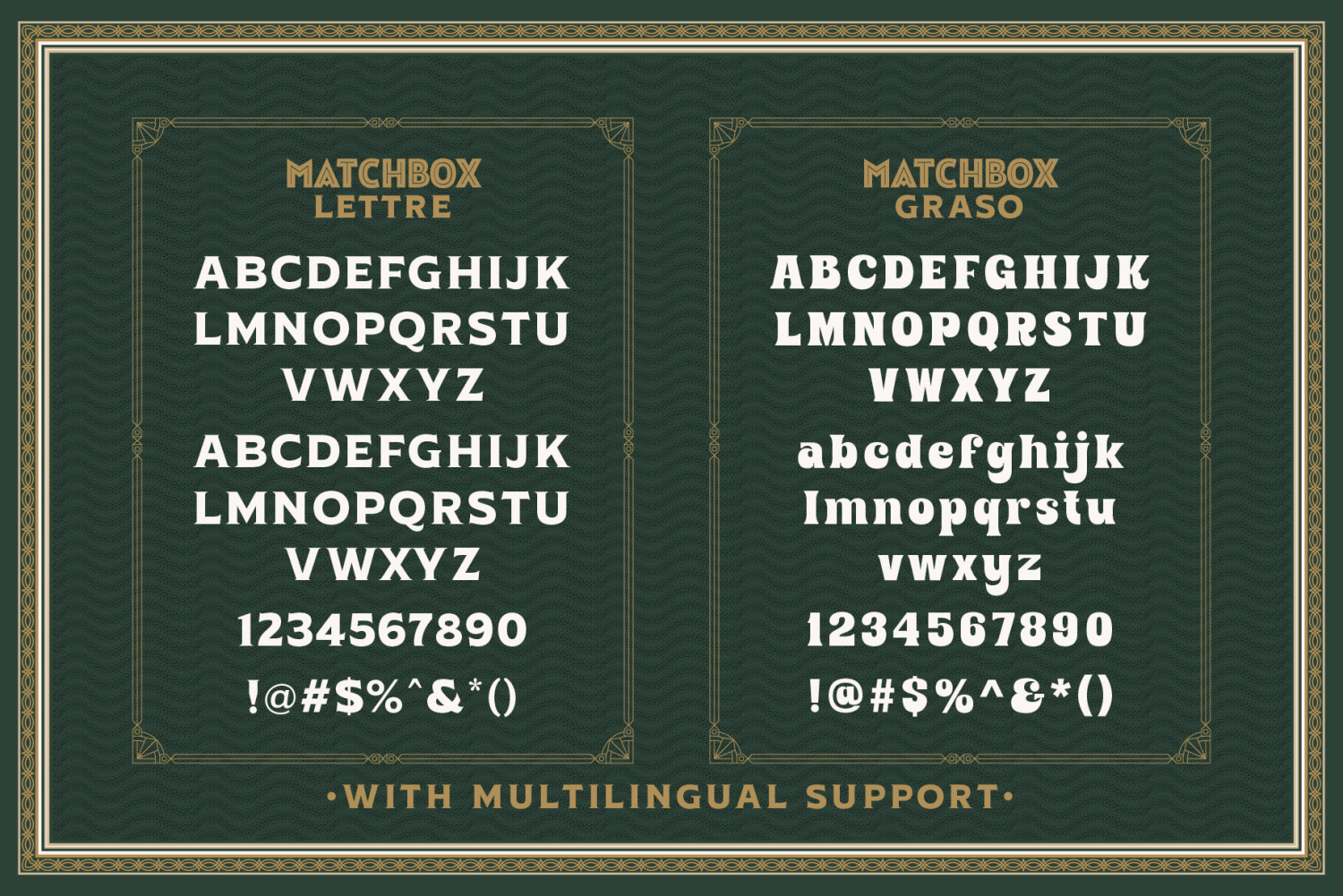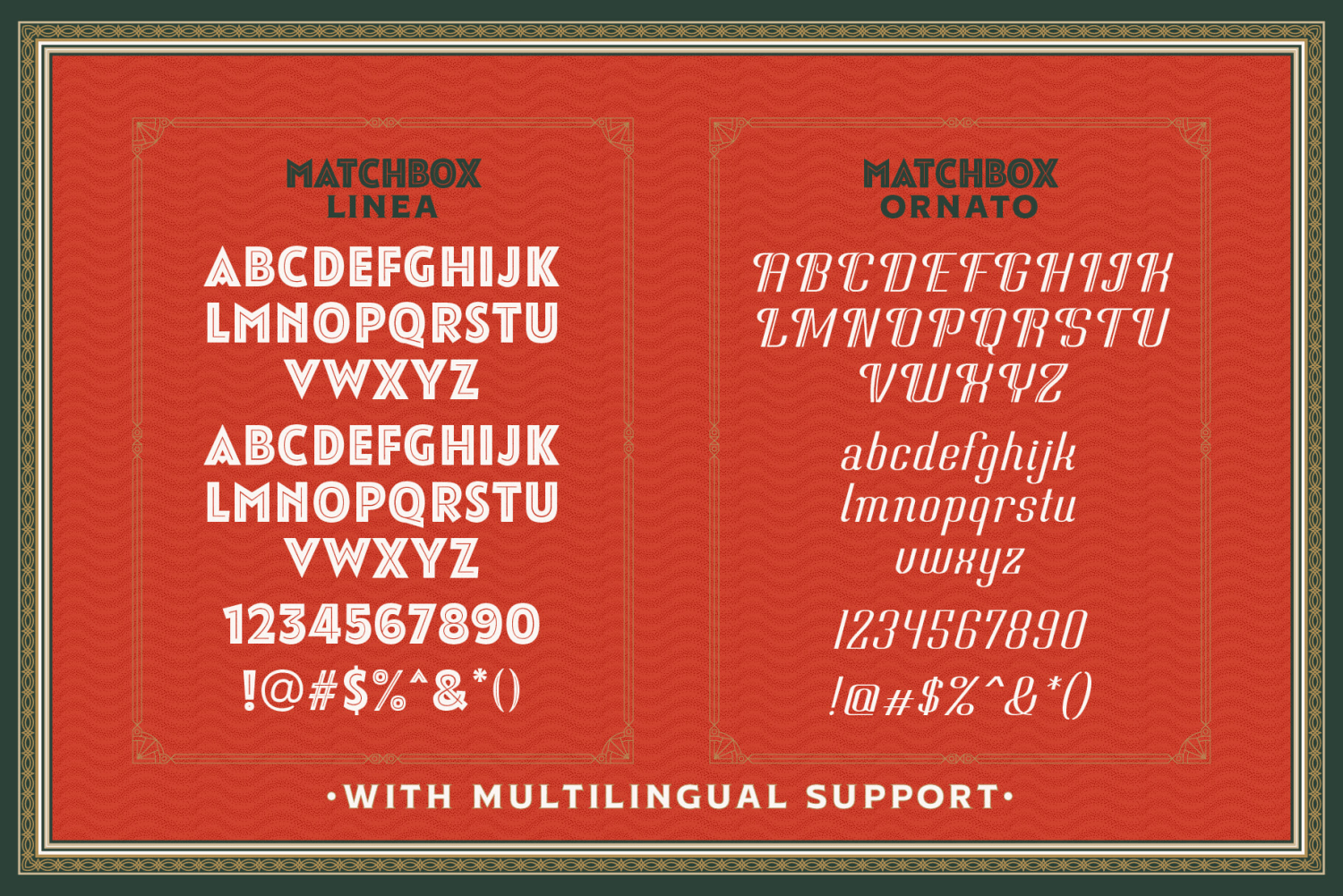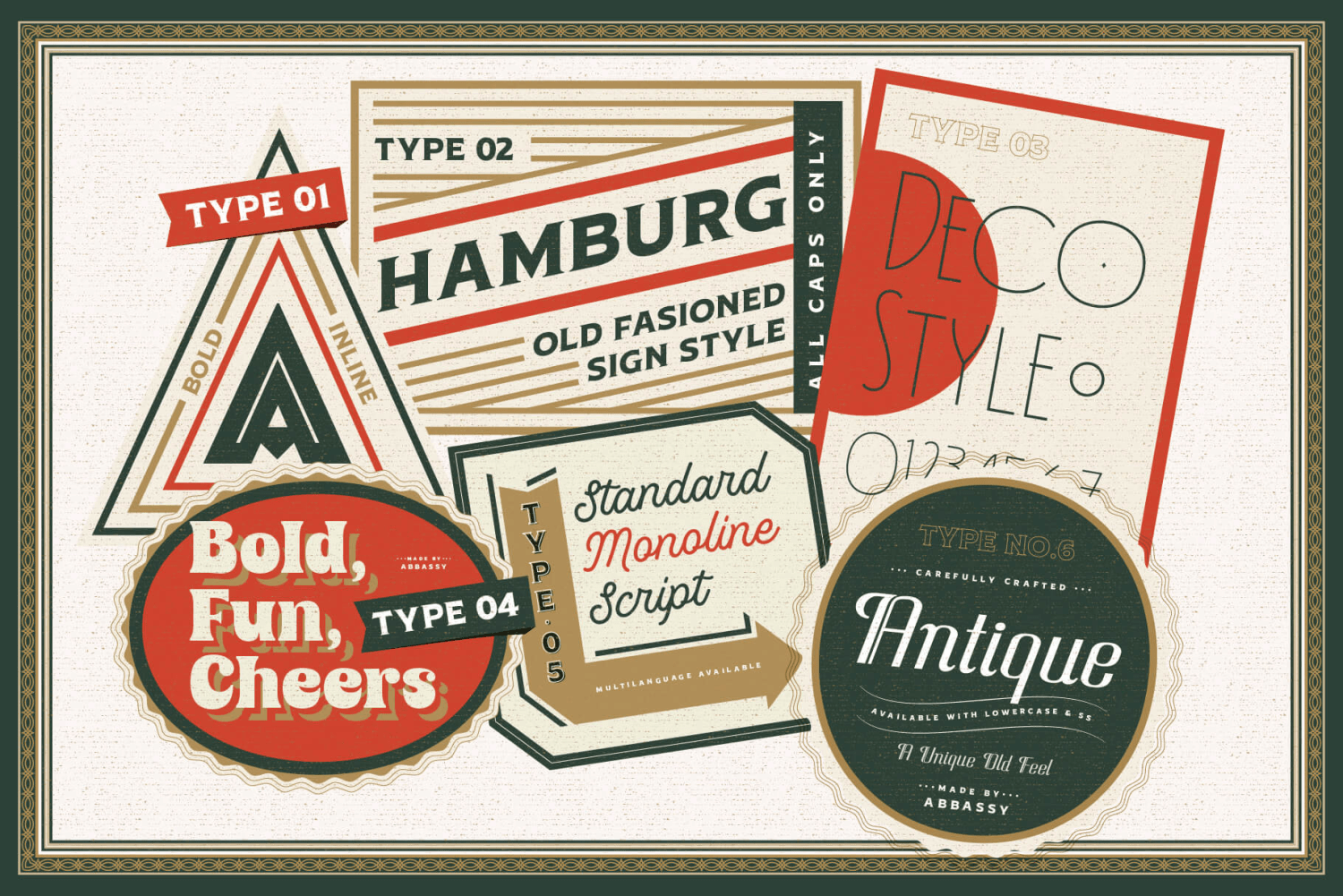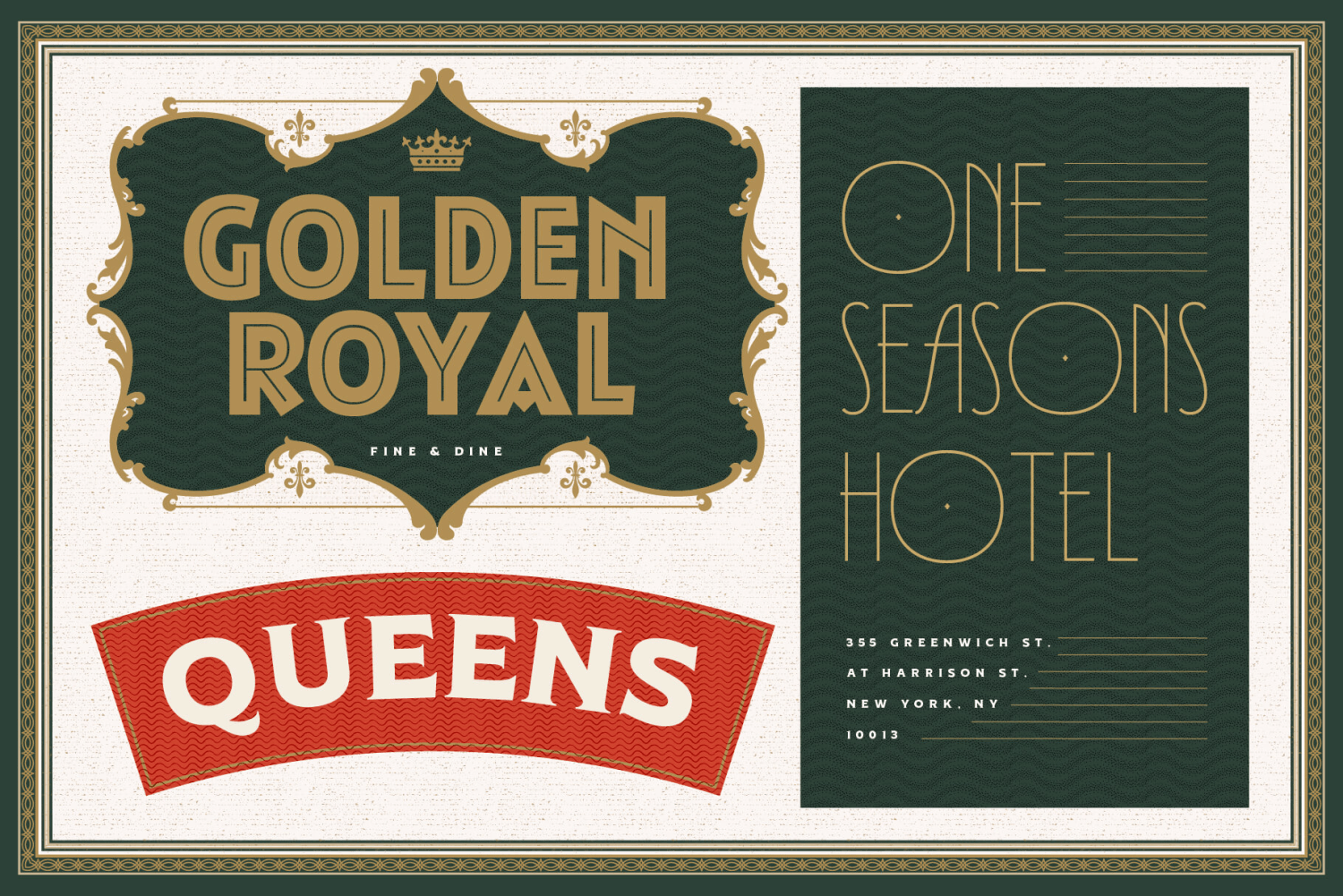
About Matchbox Font Collection
Inspired by a vintage book, old style design, a classic casual vintage look fonts. Minimal decoration on the fonts made it more casual look. The fonts are very versatile, even it works also on modern design but still keep the classic look. Created 6 Fonts…